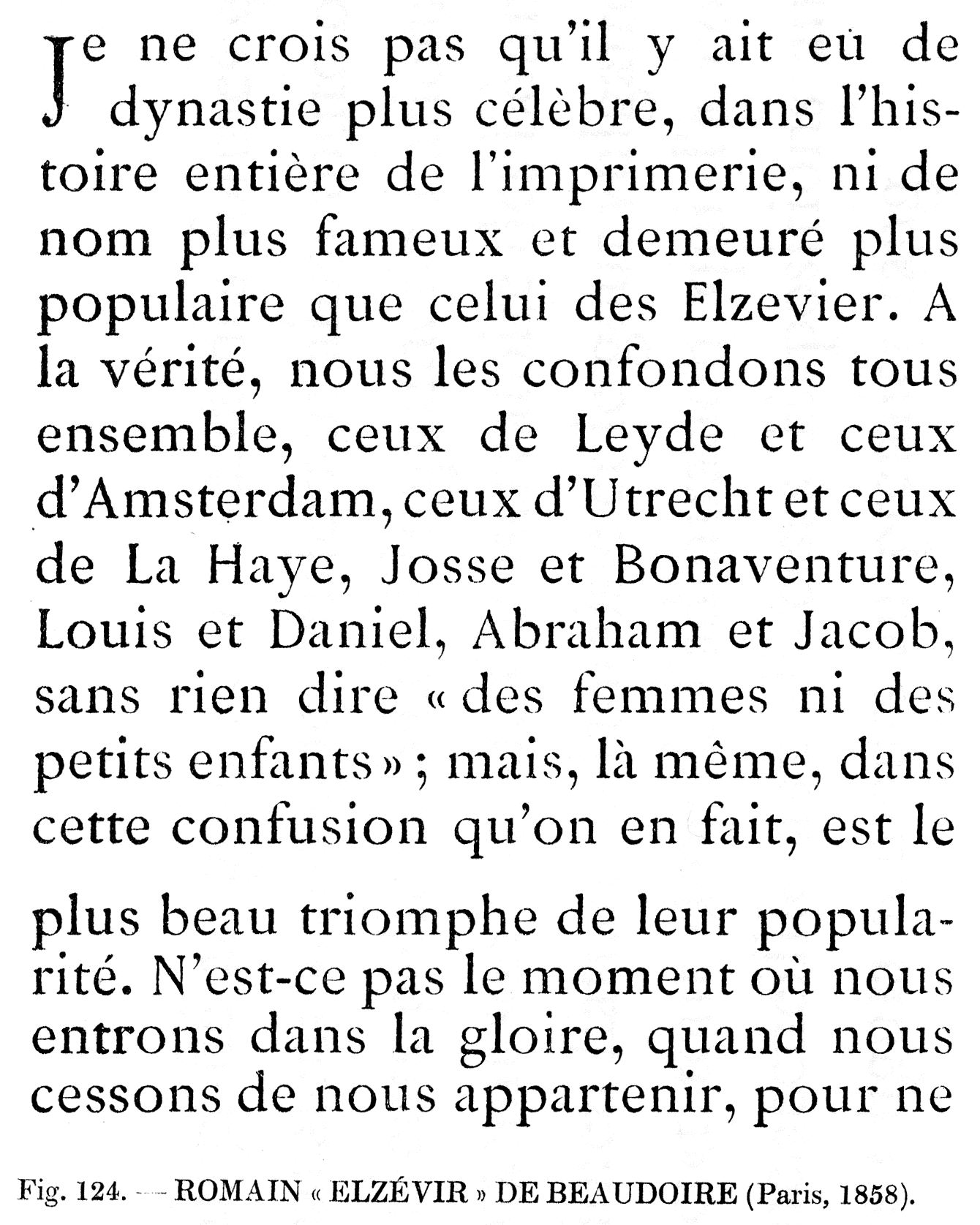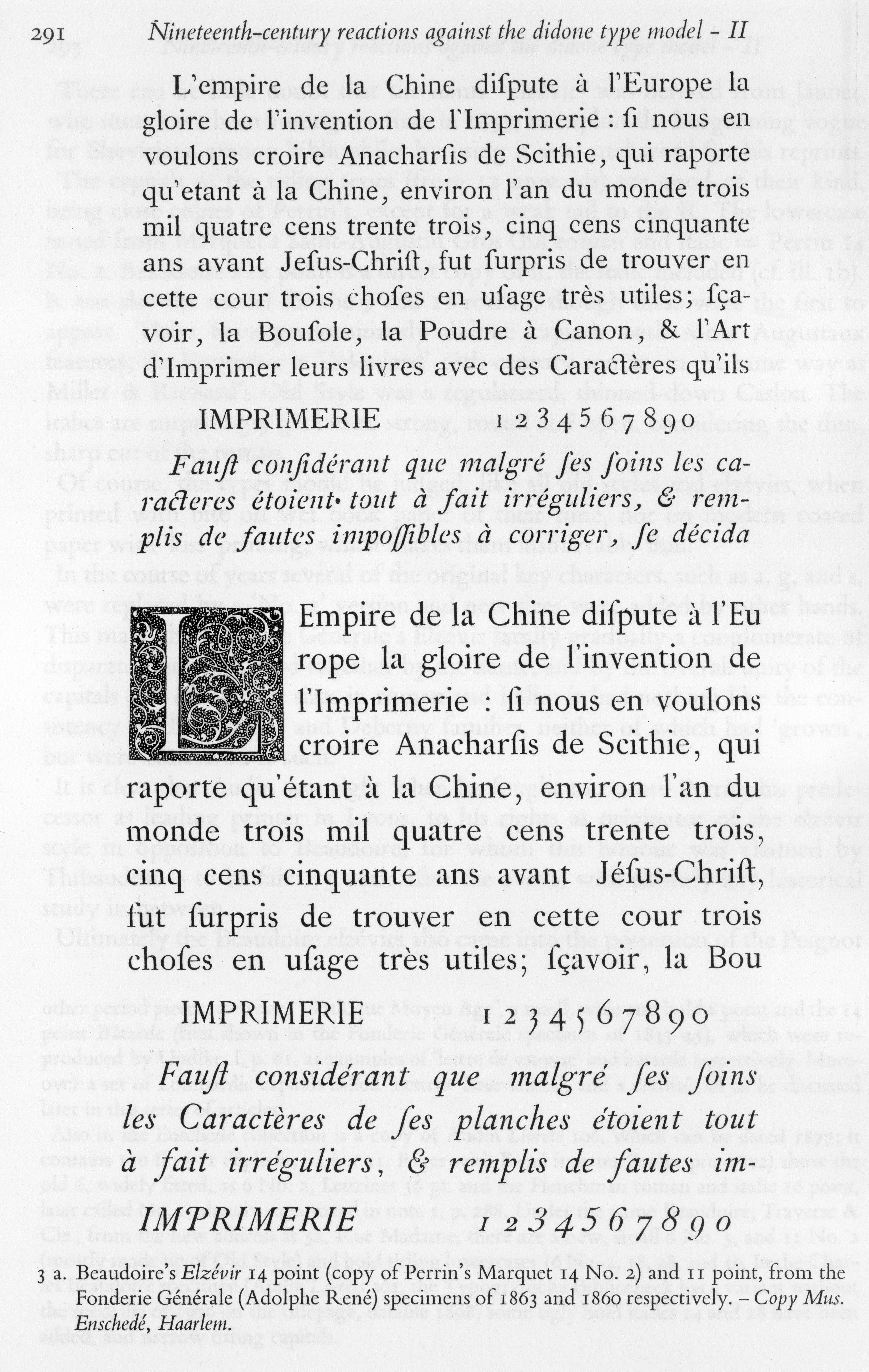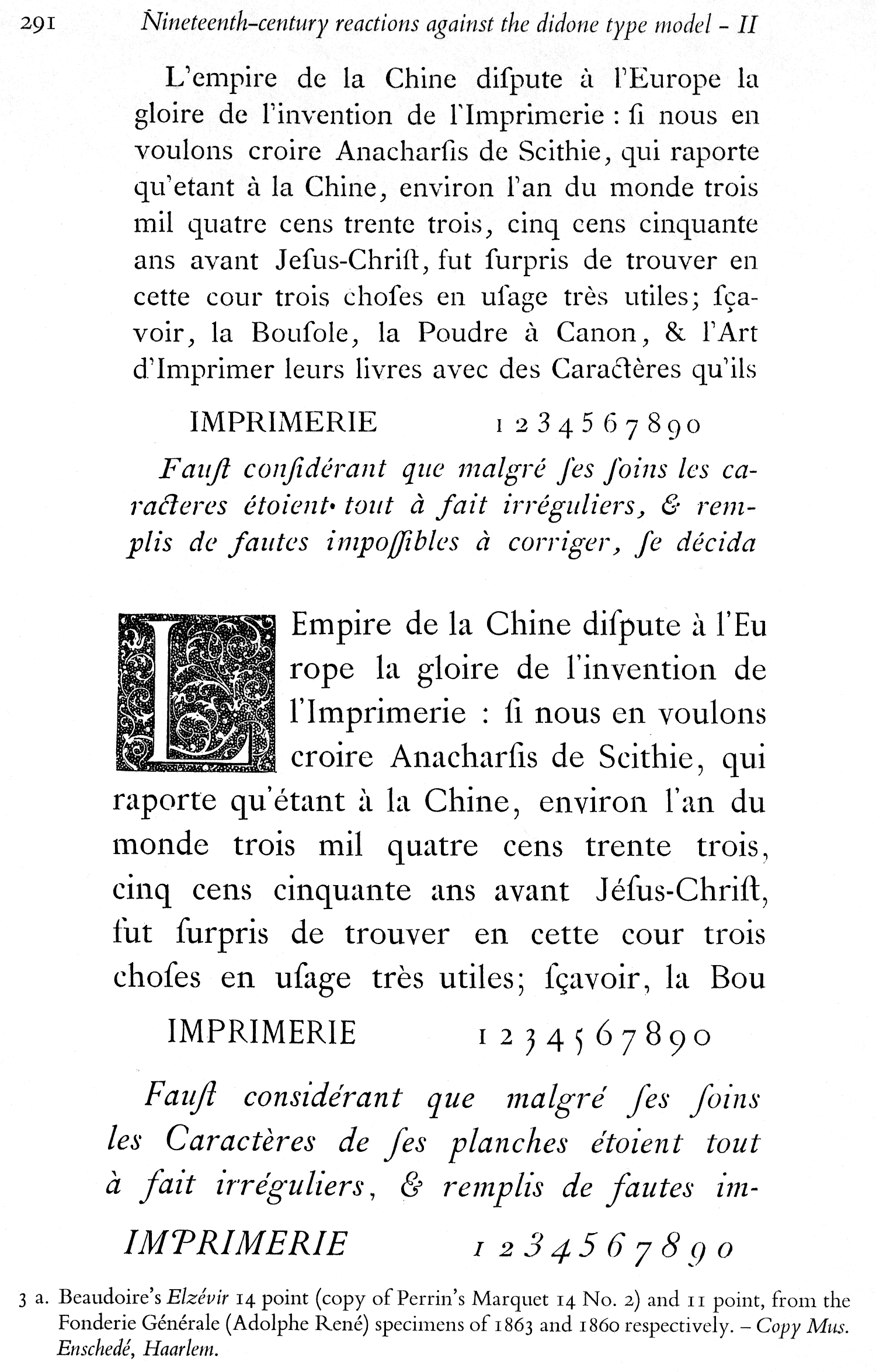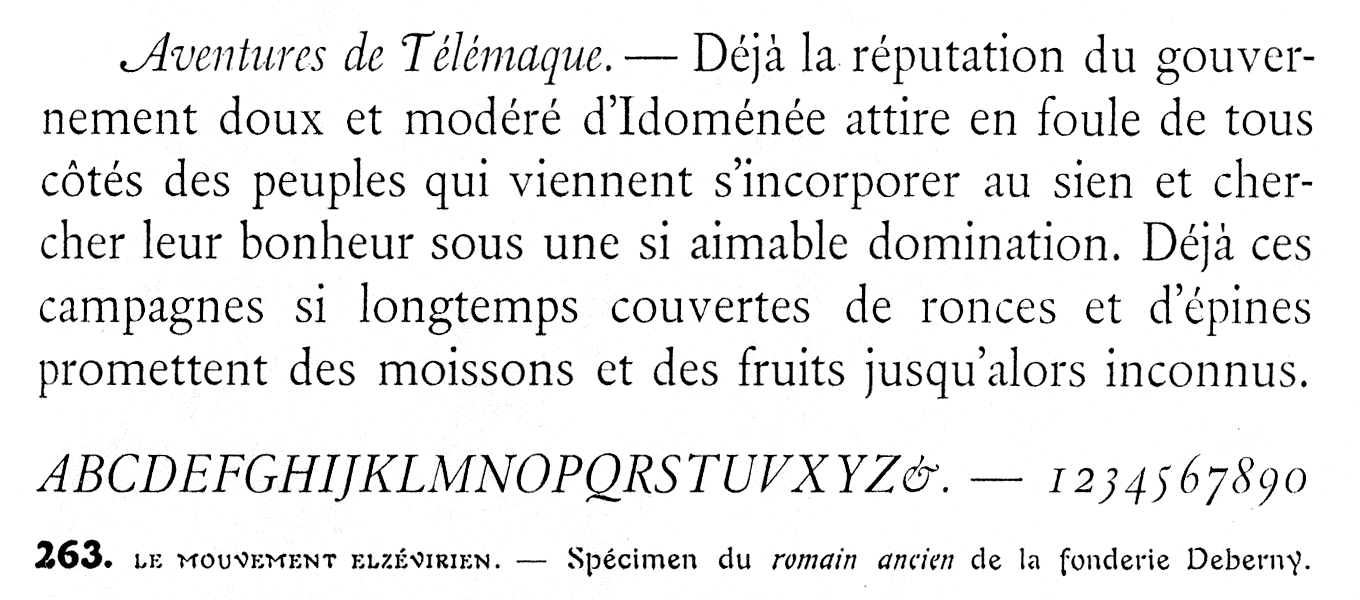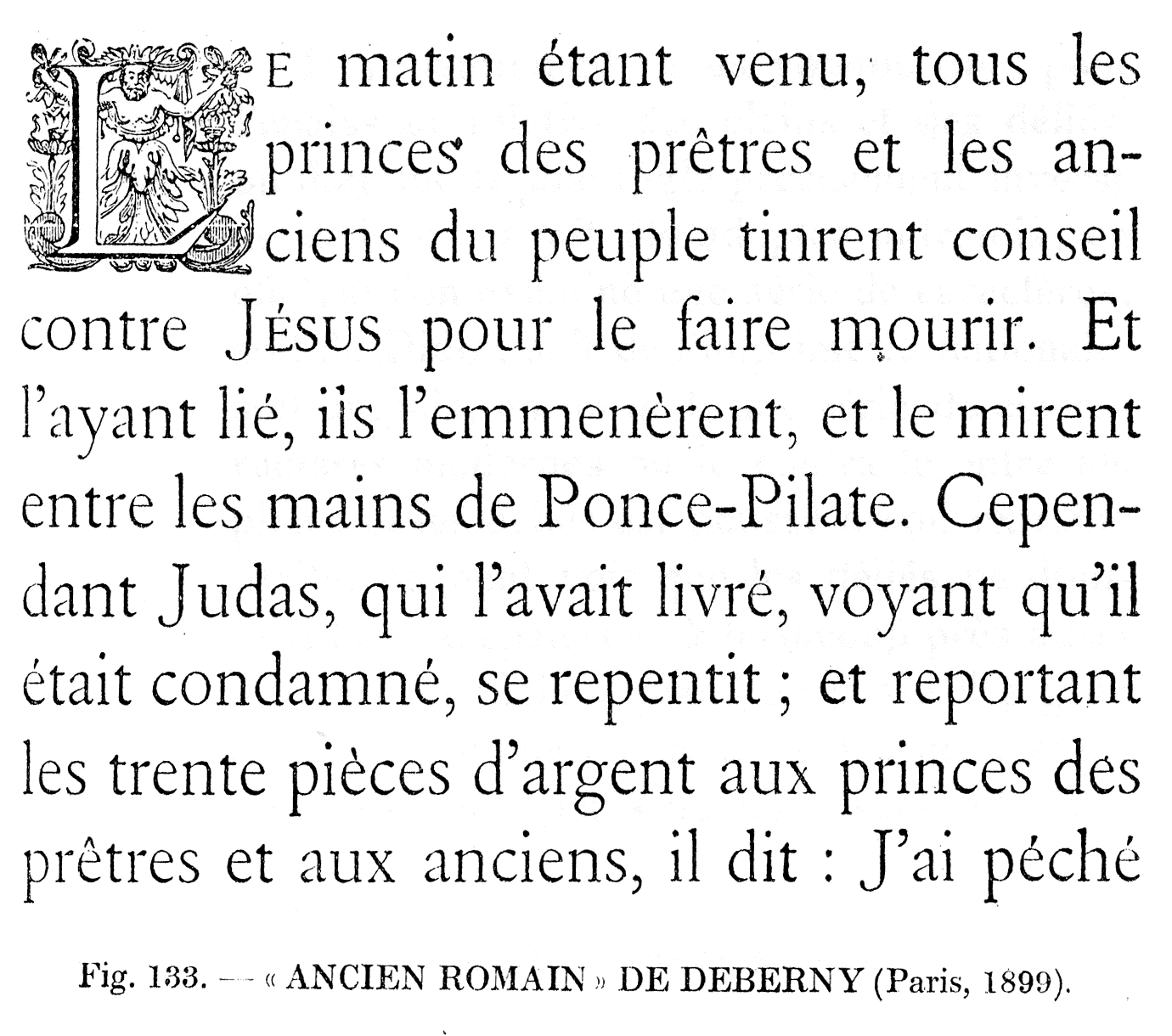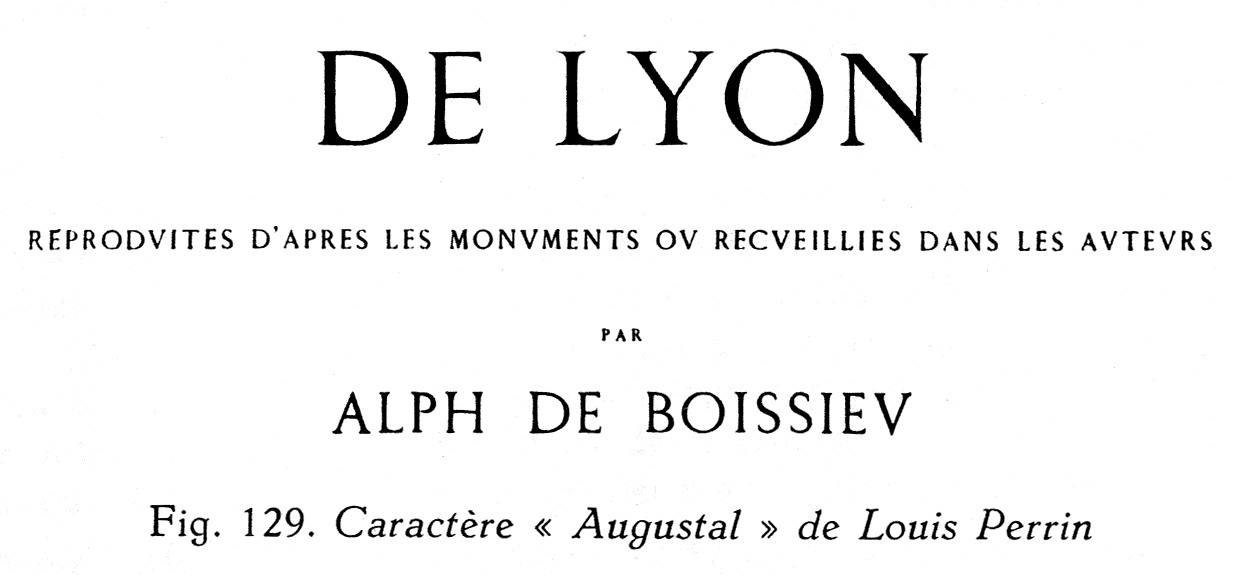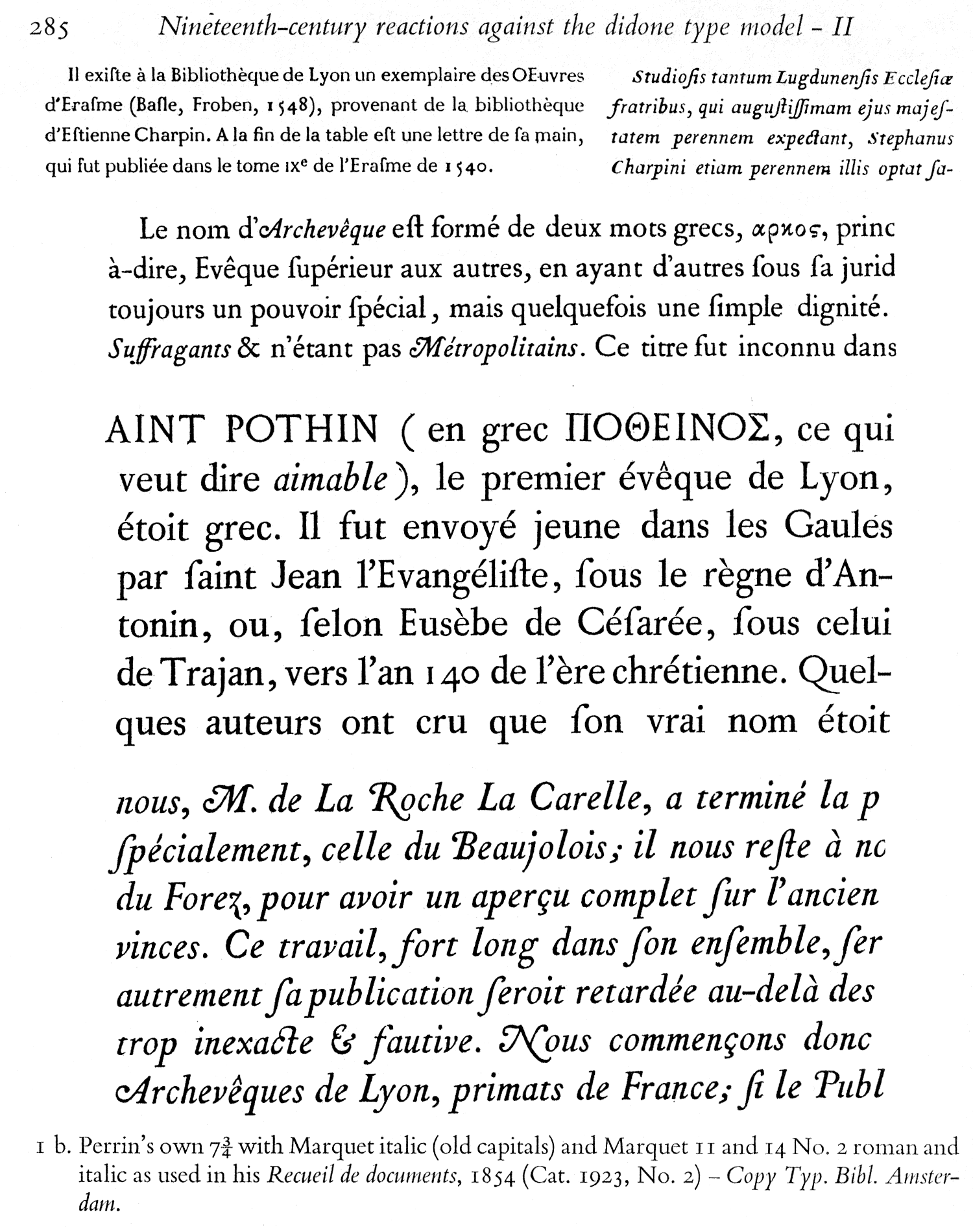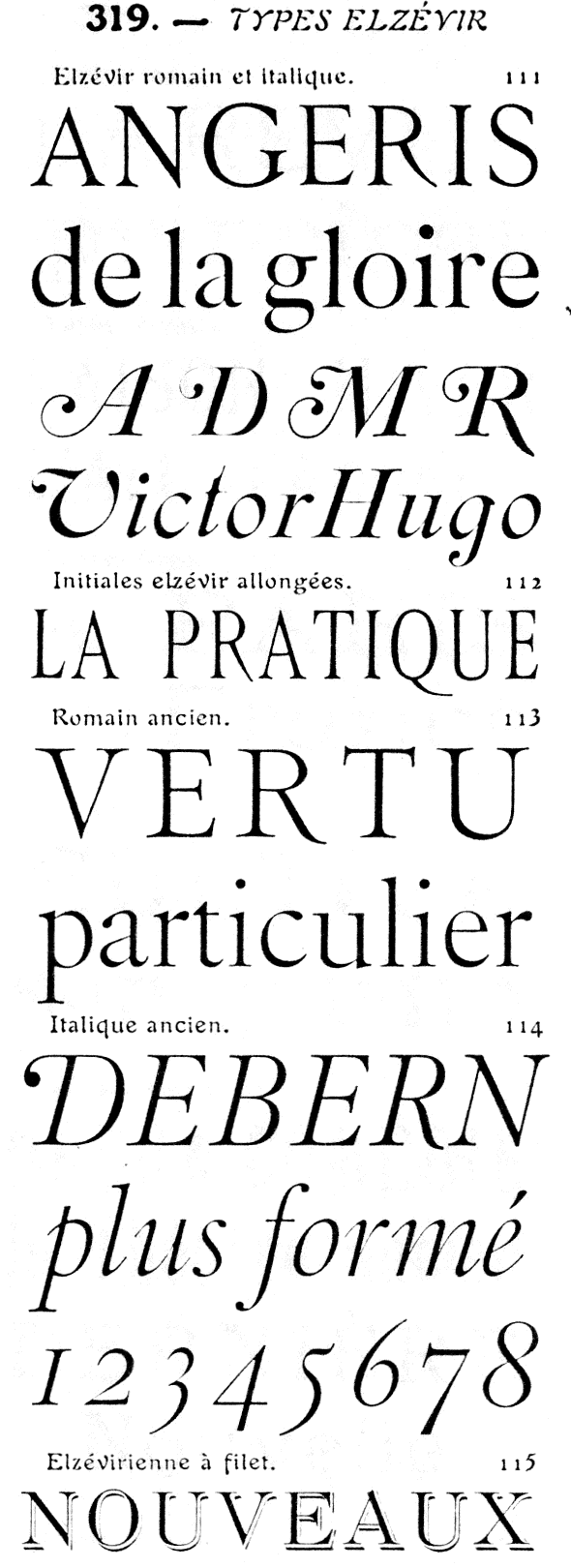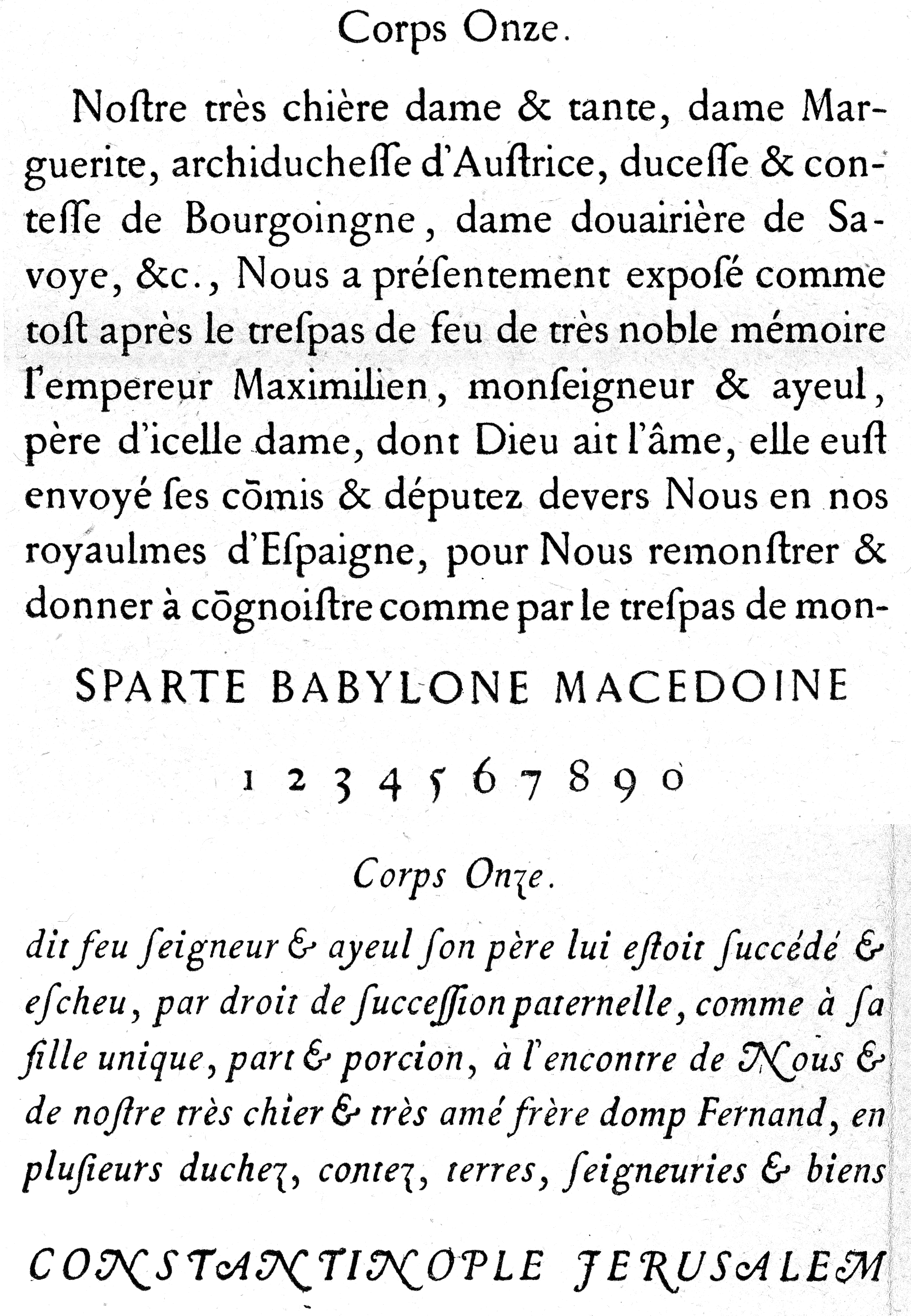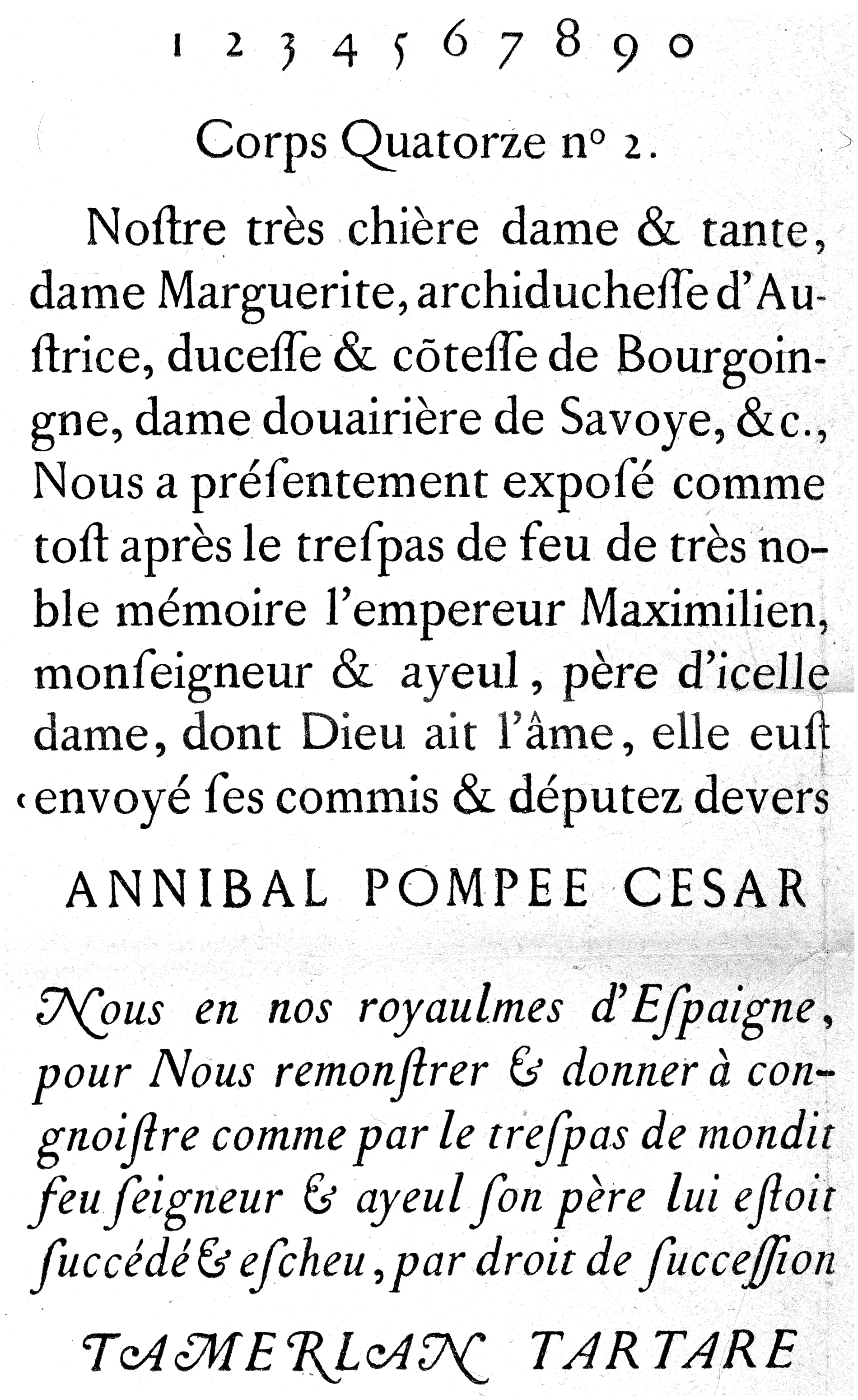
Hello. This is my first stab at font building. It is not an original design, but my attempt at recreating the fonts found in the Oeuvres de Descartes series published by J. Vrin in the 1970s. It was pointed out to me by someone named Claude on a fonts newsgroup that the Titling capitals were derived from the work of Louis Perrin (The Lyons Capitals). If any one has any additional information on these fonts or any critique of how to improve the design, I would really appreciate it! Some of the glyphs (like the italic `k') I could not find in the book, and I am not quite sure how to make it fit with the other letters. Also, I know that the Italic caps are butt ugly, because I haven't been much interested in improving them (they rarely come up in use for me). But I'd still appreciate suggestions on them. You people seem to know a lot about good typography!
> This is my first stab at font building.
Wow. Are you sure? ;-)
A while back I translated a conference presentation by Ren
Its a good typeface but not Perrin revival. It sound more, from what i see in your interpretation, a Deberny & Peignot or Fonderie Bertrand Elzevir. I can't find exact reference, but perhaps with a scan of your sources, it will be more easy.
In the past, we have done during the course, some typefaces based on similar sources: http://www.porchez.com/ensadtypo/147 look at Jannet and Bertrand samples.
I did some comparisons, and it seems your text face is close to Baudoire's stuff*, although not exactly. The thing is, I could swear I've seen that characteristic narrow-top "e" somewhere before, and for some reason it makes me think of ATF. Dunno.
* Which Audin notes was actually a copy of the Augustaux in the UC but not the lc. So if the titling and body face in that book were part of the same font, the likelihood that it is a Baudoire (but how did they print it in the 1970s - was it a facsimile of a much older work?) I would say increases.
sound really possible Hrant. good research.
Hrant and Jean, thanks so much for the input! I have put together a page of scans as well as a link to the PDF that is a bit updated (I noticed a few details that needed to be changed). It is interesting that you describe these kinds of fonts as being a bit wunky, which is what initially inspired me to make them. I like escpecially the narrow top on the e and c, as well as the backward slope of the b, the lovely g, etc. But especially I love the Capital R.
The first time I saw the titling font was on the cover of Pensees Diverses sur la Comete. I noticed the spine while browsing through the philosophy books at school. I just absolutely loved these letters, especially the capital R. The cover of this book is what first got me interested in typography last winter!
In the same section I found the series on Descartes, which is quite an important resource for Descartes scholars. The editions definitely look like they were produced photographically to me and contains many different fonts. One of the problems in identifying the fonts is that there are so many different ones used in the series.
I chose to work from Tome Six, since this is the cleanest copy we have. I based the font off the largest of the type, which is about 14pt. The original's italic has a noticeably lower x-height than the regular; I kept it lower but not as much as in the original.
The font in the introduction and in the footnotes is different than the main body text, but I did not reference this in the design (in fact the small fonts seem to resemble very much JFP's Bertrand). Also, the small caps do not seem to be based on the capitals, but are possibly from another typeface. I decided to retain their flavour anyway. The original numerals are very ugly, and I tried to make them prettier (this is where I made the most change).
Interestingly, the italics used at different sizes all seem to be the same design, but drawn slightly differently. For example, the smaller ones are curvier, while the stems on the full size are straighter.
I hope that we can achieve a correct identification so that it can be named properly and I can learn more of the history of the designs. I would like to look at those books that you recommended, Hrant, but they are typography books are not available here in Winnipeg. Hopefully I will be able to buy some books at some point, but they are generally prohibitively expensive (I am a philosophy student). If you can post any scans from your books I would really appreciate it!
Good scans.
That "a" is really shockingly contemporary, and I guess you did a great job with it after all. The only thing I'd change would be to firm up the very outside-bottom-left.
> I love the Capital R.
It's a charming sort of structure - many people like it, including Roger Black from what I've noted.
> The cover of this book is what first got
> me interested in typography last winter!
Life is strange!
> [numerals are] where I made the most change
I can't see what the original numerals look like (the only ones I see, on the "original cover", seem fine, and similar to your new ones actually!) but one thing I would suggest is to make them "classic French" style, not conventional, since this is after all a historical font - so the "3" and "5" ascending rather than descending. Look at the old Didot stuff - quite nice:
This will take some time; I've already studied for some time my copy of "Modéles des Caracteres de l'Imprimerie"; and as you can see, I've already made a bold version of the typeface.
But to make a usable revival of Fournier is like making a mould from brilliantly formed child, while he is growing.
you have copies of Imprimerie specimen? Let us see some JPG.
I have an old letterpressed probe of Garamond by Imprimerie.